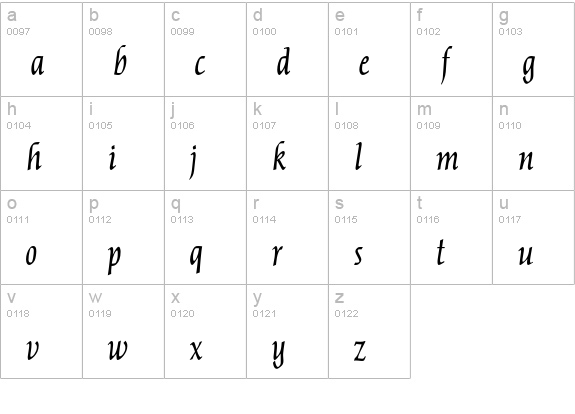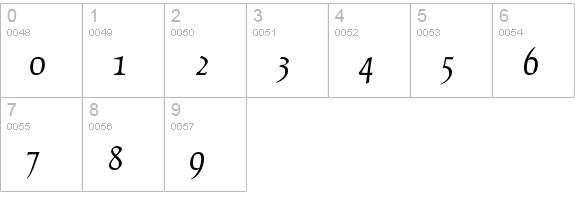
OPTICather-Italic is a distinctive, italic variant in the OPTICather typeface family \xE2\x80\x94 well suited to design and typography projects.
Introducing OPTICather-Italic, a sophisticated and elegant font designed to elevate your designs to the next level. This italic typeface exudes a sense of modernity and refinement, making it perfect for projects that require a touch of luxury and sophistication. Its sleek and streamlined letterforms are sure to captivate your audience and leave a lasting impression. The best part? OPTICather-Italic is available for free download at FontsMarket.com, allowing you to add this exquisite font to your collection without breaking the bank. Whether you're working on branding, editorial design, or any other creative project, OPTICather-Italic is sure to bring a touch of class and style to your work. Elevate your designs today with this stunning font and watch as your projects come to life with a newfound sense of elegance and charm.